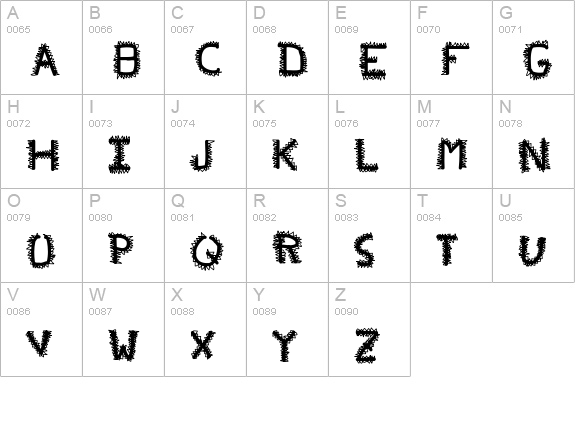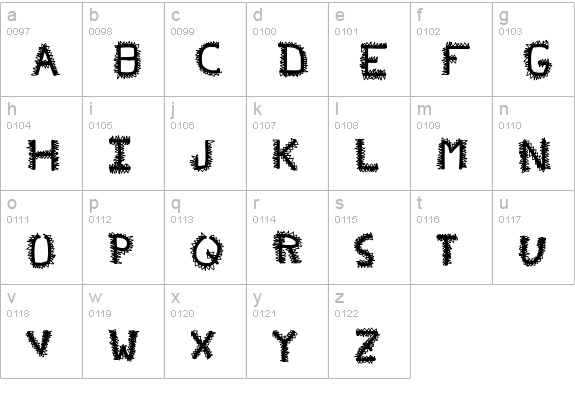
pf_veryverybadfont20 Font Details
Introducing pf_veryverybadfont20, a font that exudes a unique blend of edginess and creativity. This font is the epitome of boldness, making it perfect for those seeking to make a statement with their designs. With its distinctively jagged edges and unconventional letterforms, pf_veryverybadfont20 adds a touch of rebelliousness to any project. One of the best parts about pf_veryverybadfont20 is that it is completely free. Yes, you read that right. You can freely download this font at FontsMarket.com, giving you access to its mesmerizing aesthetic without any cost. Whether you're a designer looking to spice up your portfolio or someone who simply appreciates the beauty of typography, pf_veryverybadfont20 is the ideal choice. This font offers endless possibilities, allowing you to unleash your creativity and push the boundaries of design. Its versatility is unmatched, making it suitable for a wide range of projects, including logos, posters, website headers, and more. With pf_veryverybadfont20, you can effortlessly captivate your audience and leave a lasting impression. Don't miss out on the opportunity to enhance your design arsenal with pf_veryverybadfont20. Download this font today from FontsMarket.com and discover the power of bold and daring typography. Get ready to make a statement and set your designs apart from the crowd.